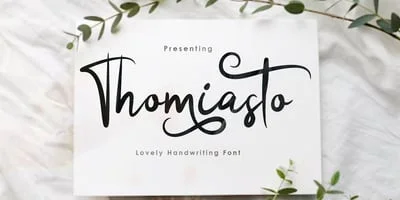
Thomiasto Font
Thomiasto Font is ideal for creative agency branding, artistic portfolio designs, contemporary gallery exhibitions, innovative startup logos, modern design studios, cutting-edge advertising campaigns, architectural signage, experimental typography projects, progressive cultural institutions, and forward-thinking editorial layouts.
What makes Thomiasto Font exciting is its distinctive contemporary character that perfectly balances artistic innovation with functional sophistication to create memorable visual impact for modern design applications. This typeface features unique letterforms with creative proportions and artistic details that demonstrate exceptional design thinking while maintaining excellent readability across all media. The font's innovative personality and artistic credibility make it ideal for creative professionals and progressive brands seeking to project originality, design excellence, and the sophisticated creativity that sets industry leaders apart from conventional approaches.
Thomiasto Font family includes multiple stylistic alternatives and creative variations that enhance its artistic appeal while providing comprehensive design flexibility for professional and artistic applications. The font features innovative ligatures, creative ornaments, and artistic character details that provide extensive creative possibilities for sophisticated branding and design projects.
Design agencies and creative professionals consistently select Thomiasto Font for projects requiring distinctive artistic appeal and design credibility. The font's innovative character excels in applications where creative differentiation and artistic sophistication are essential for brand success. Whether you're designing for creative studios, artistic ventures, or innovative companies, this exceptional typeface delivers the artistic authenticity and creative excellence that resonates with audiences who appreciate genuine design innovation and the sophisticated creativity that defines contemporary artistic leadership and progressive design thinking.